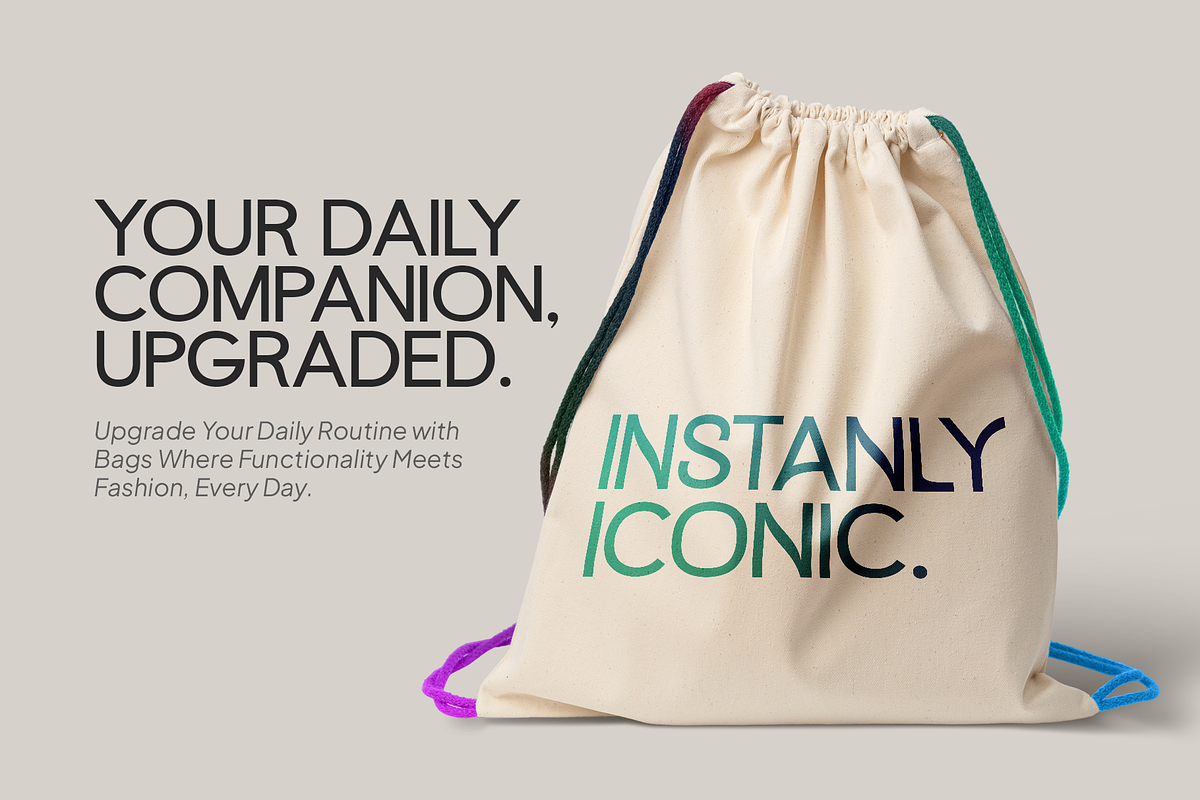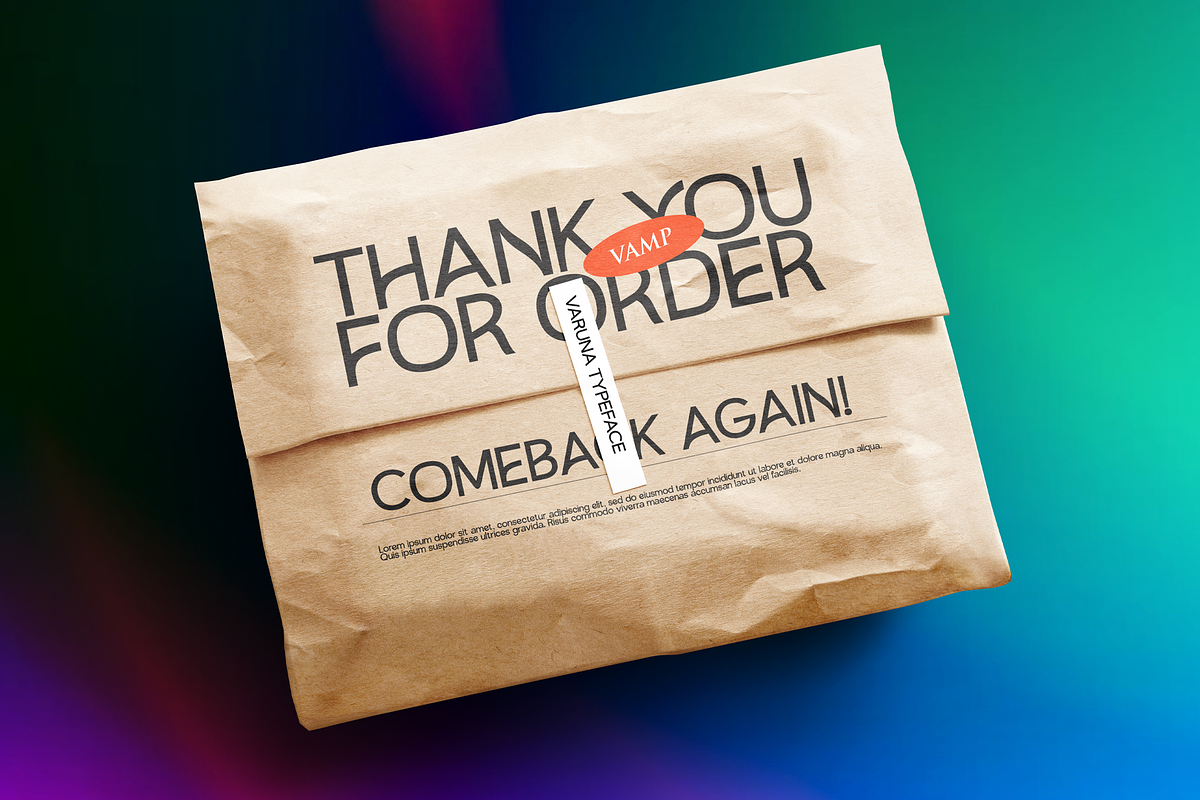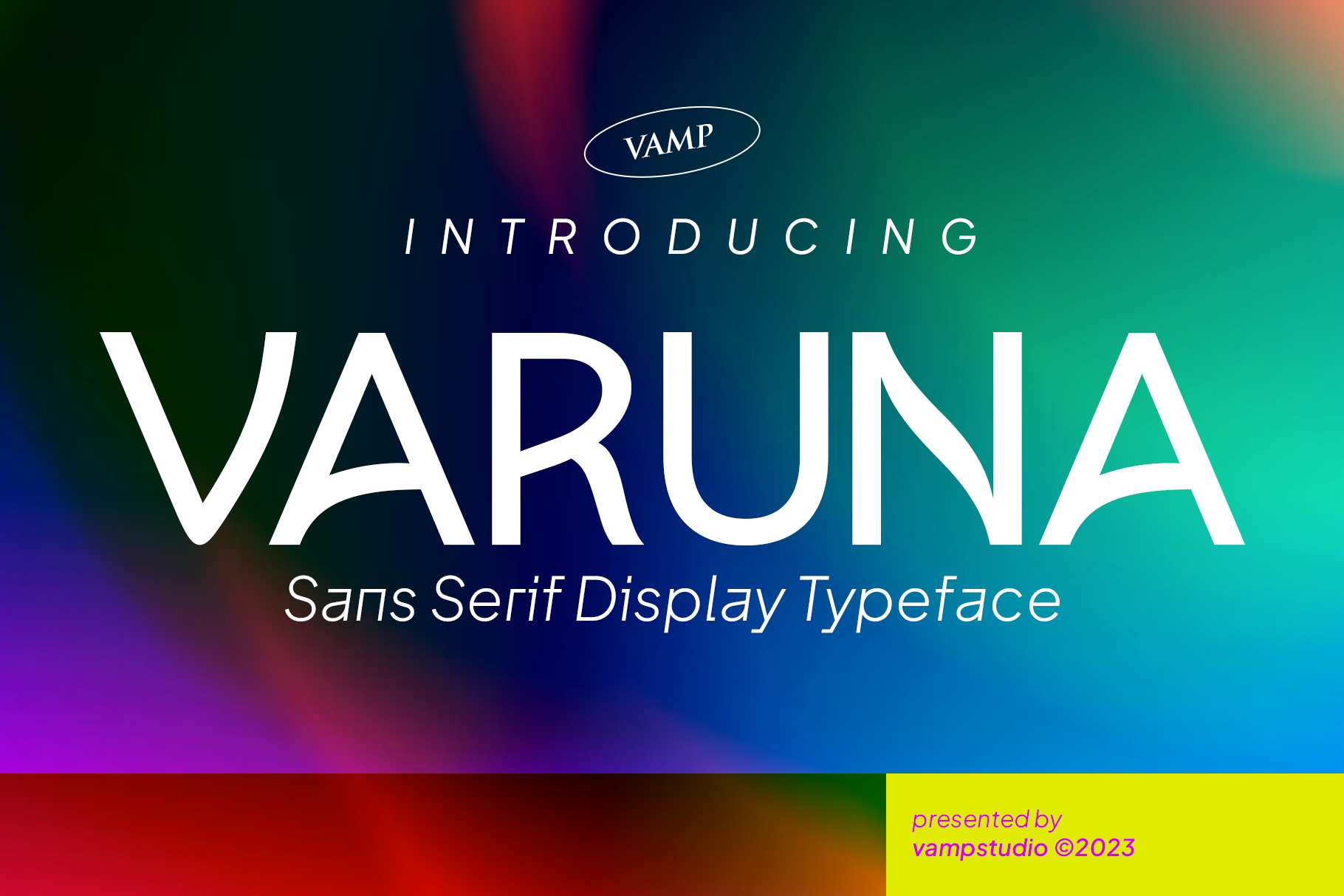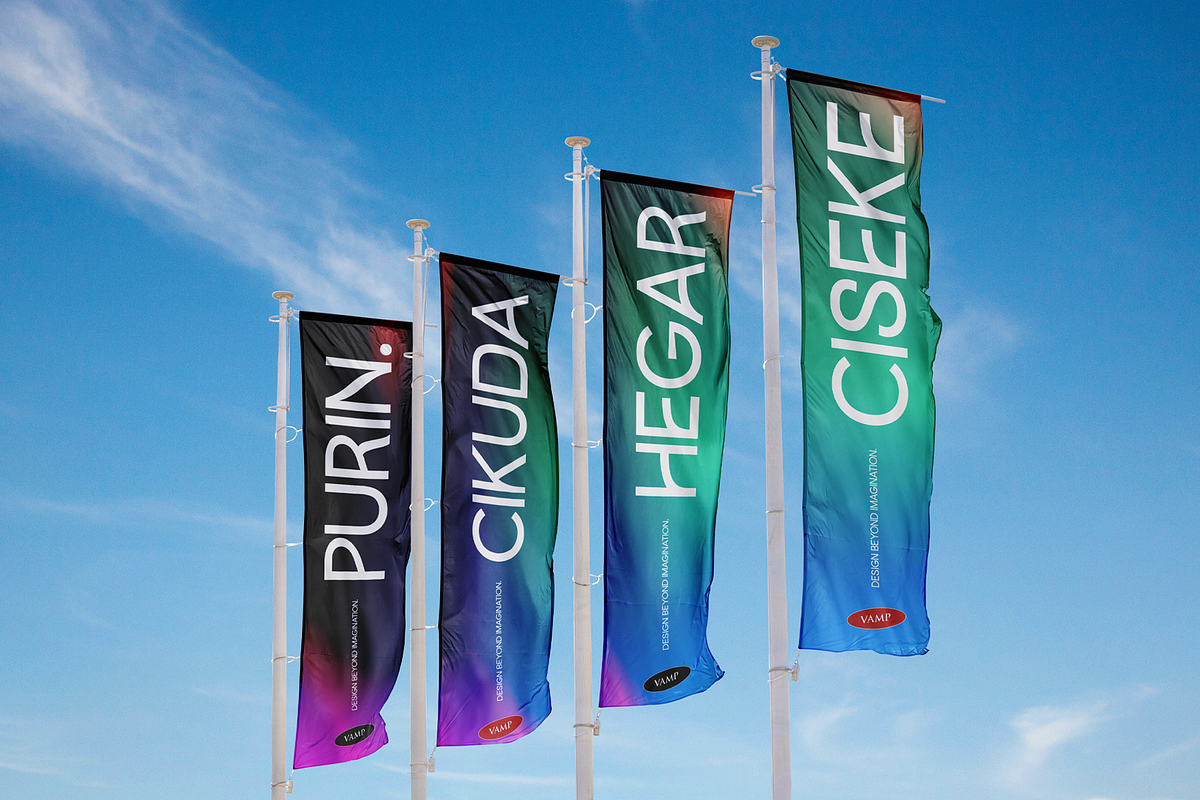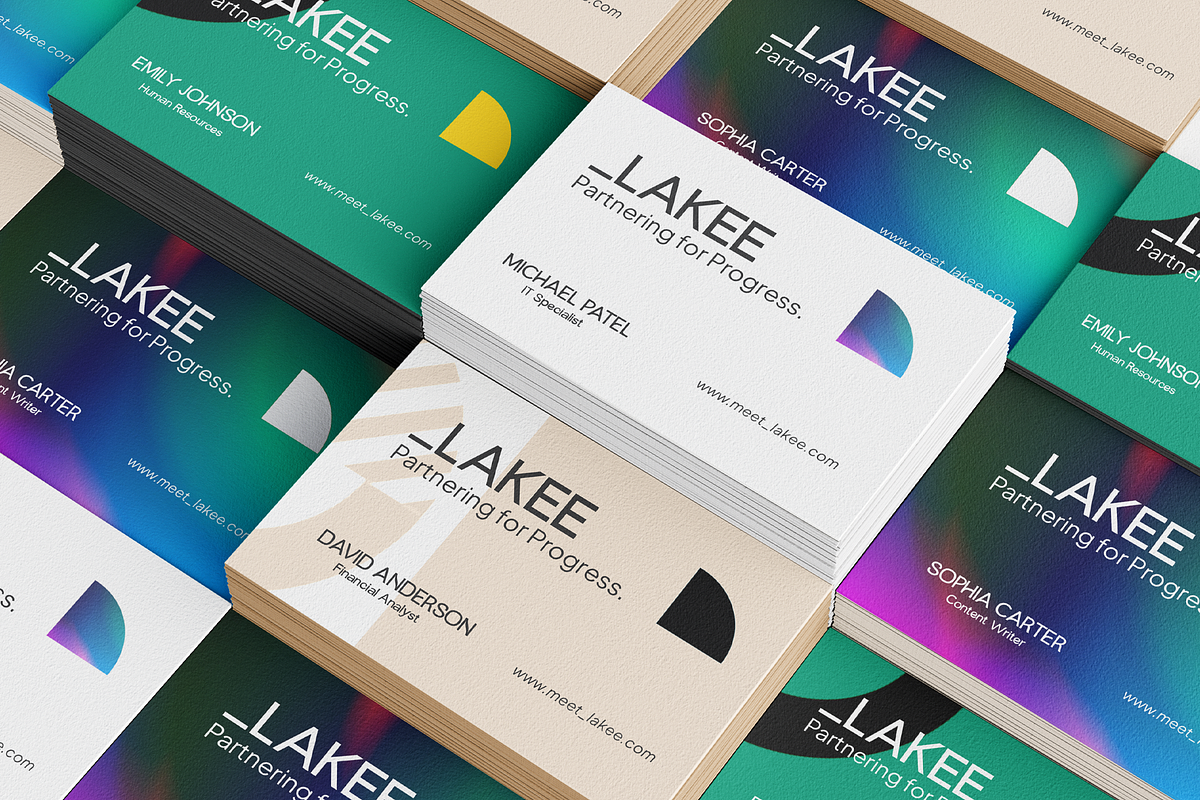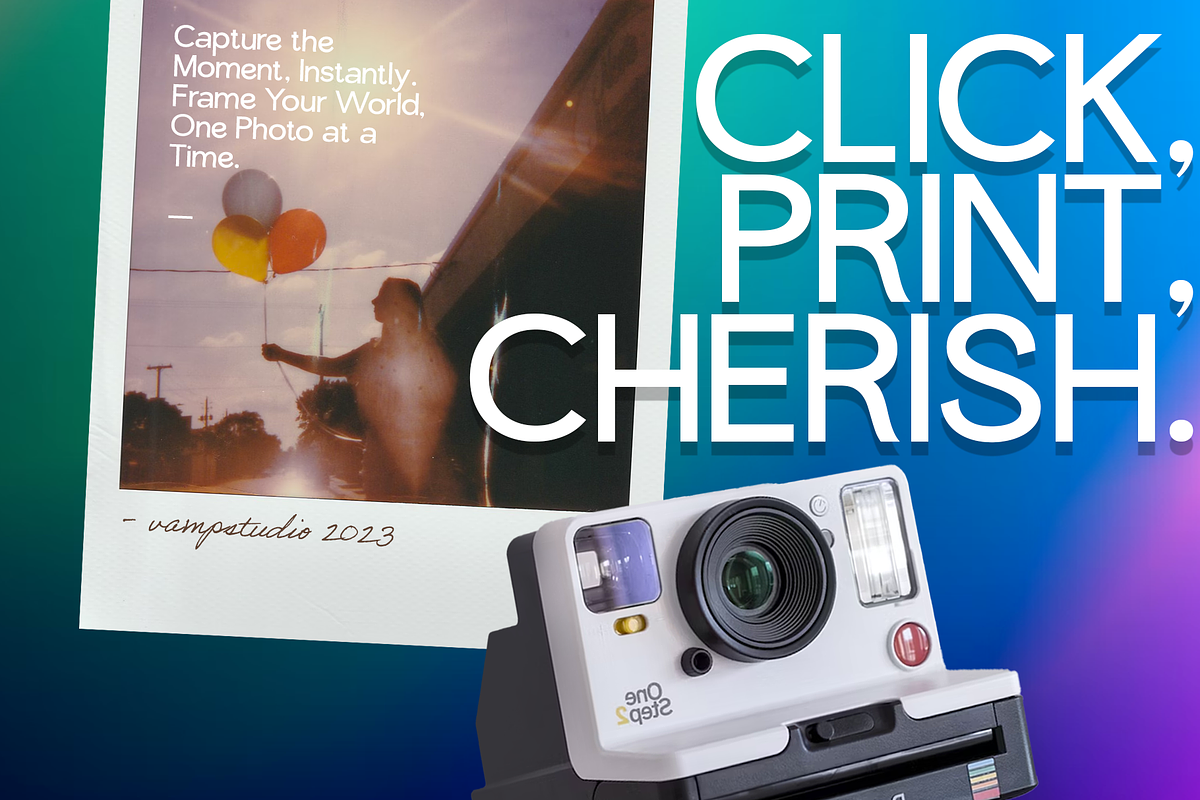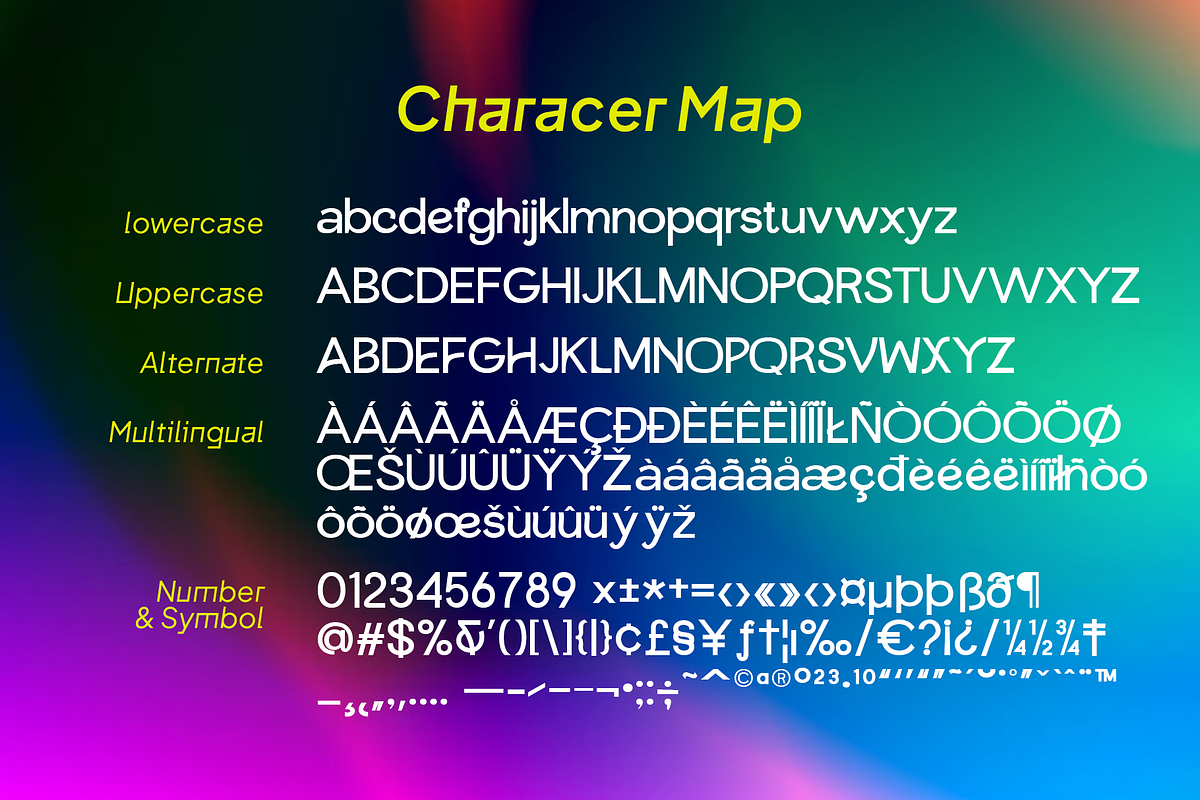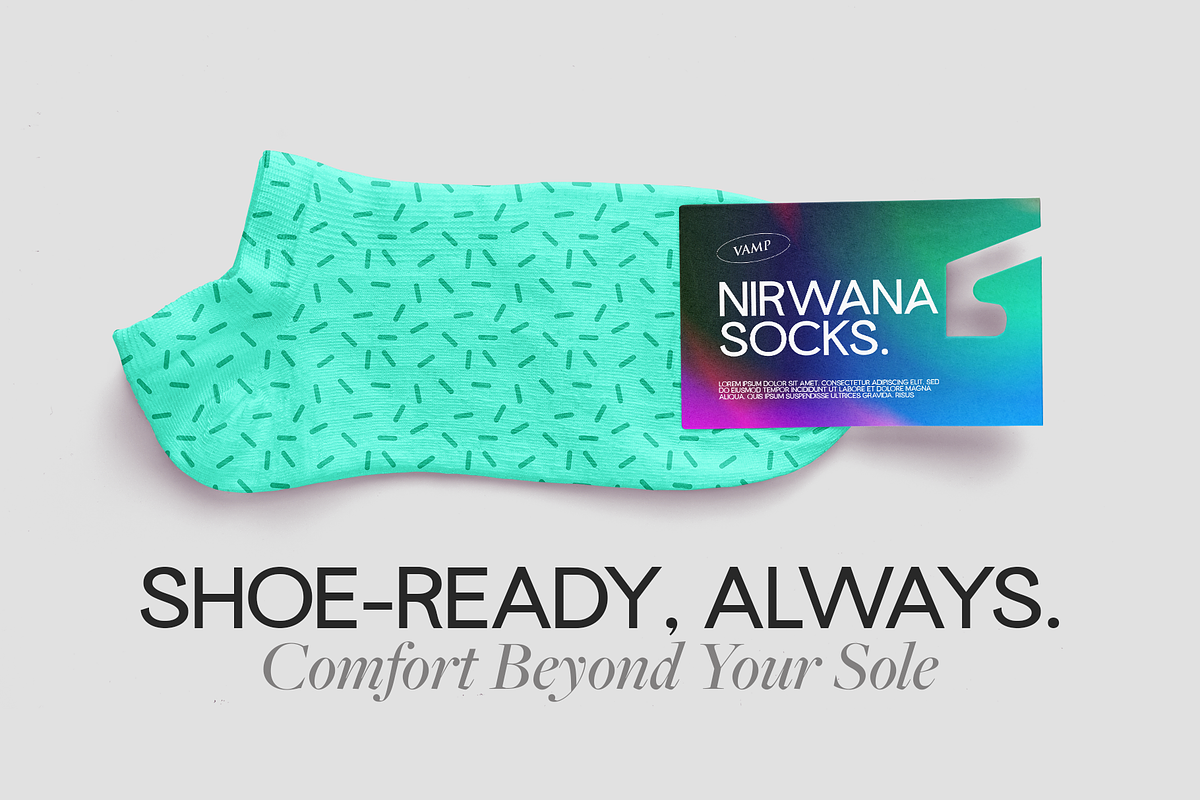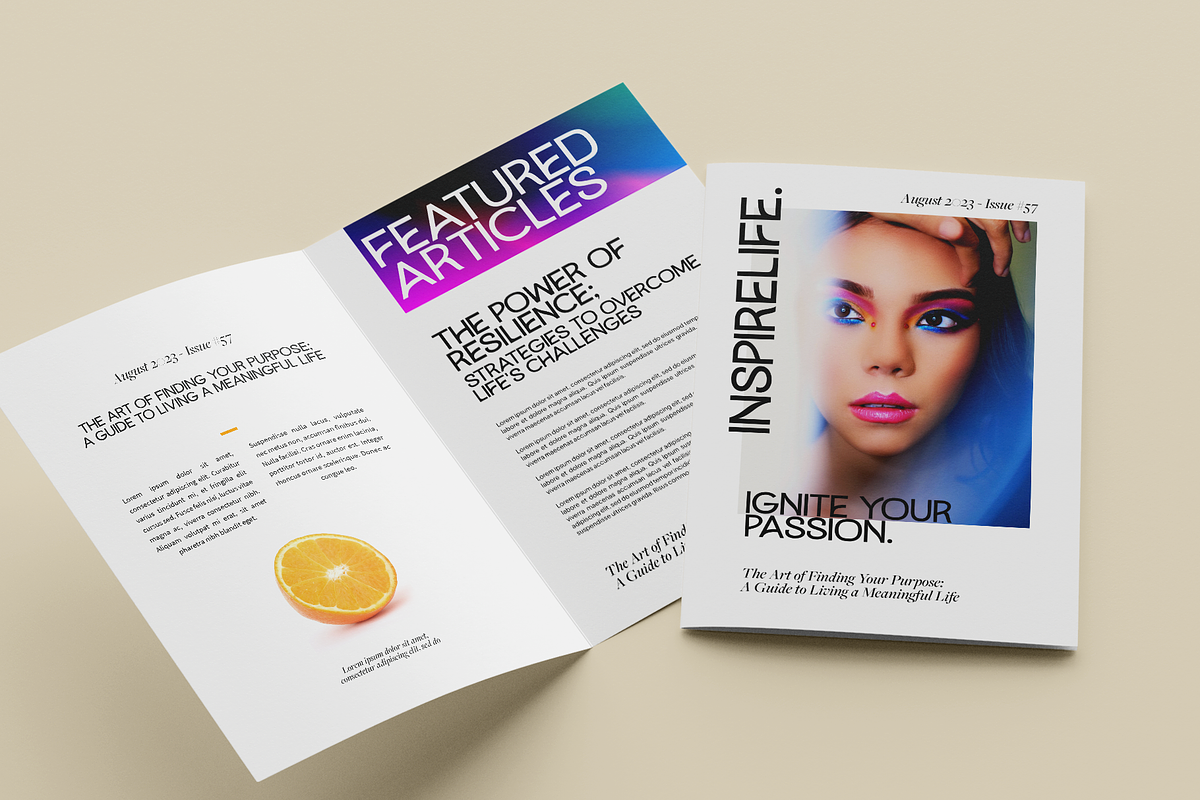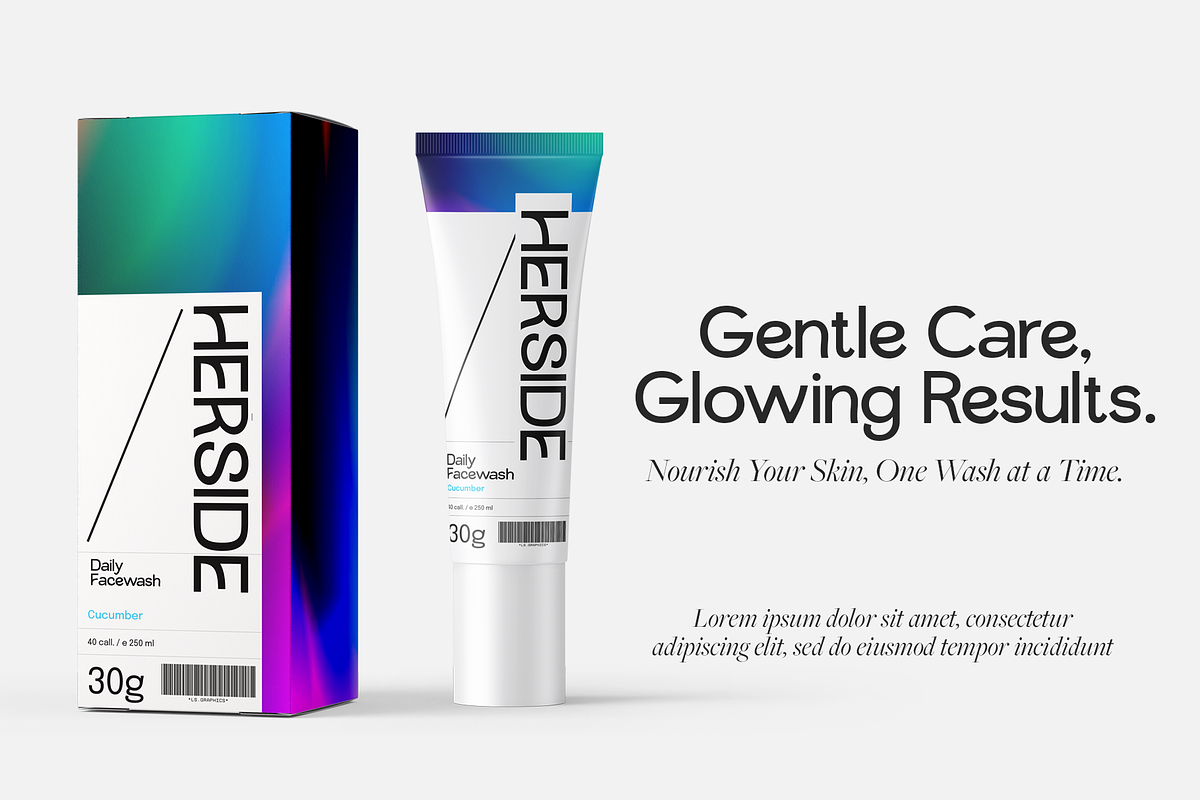
Varuna Sans Serif Premium Font
Varuna is a modern elegant sans serif typeface. This font looks very simple, clean, and elegant. Specially designed by skilled hands makes this font is the perfect fit for all your big projects.
Varuna is perfect for branding projects, logo, wedding designs, social media posts, advertisements, product packaging, product designs, label, photography, watermark, invitation, stationery and any projects that need handwriting taste.